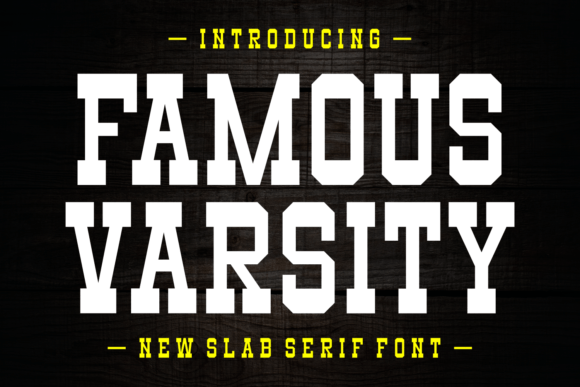
Introducing Famous Varsity Font, the ultimate slab serif font that is guaranteed to make your designs stand out from the crowd! Created by the talented Riman from 7NTypes, this font is a game-changer for those who crave boldness and assertiveness in their typography.
With its unique and captivating style, Famous Varsity Font is the perfect choice for anyone seeking a font that truly embodies the essence of creativity. Whether you're designing logos, branding materials, or even creating eye-catching social media posts, this font will undoubtedly leave a lasting impression on your audience.
One of the key highlights of Famous Varsity Font is its versatility. It seamlessly blends into any project, regardless of the topic or theme. From sports-related designs to vintage-inspired creations, this font effortlessly adapts to your creative vision, allowing you to express your ideas with precision and flair.
But what sets Famous Varsity Font apart from the rest? Its ability to evoke emotions and create a sense of nostalgia. When your audience lays eyes on your designs, they will instantly be transported back to their glorious school days, filled with excitement and team spirit. This font has the power to evoke a strong emotional response, making it the perfect choice for anyone looking to create a memorable and impactful design.
Not only does Famous Varsity Font bring a touch of nostalgia to your projects, but it also exudes professionalism and sophistication. Its bold and assertive nature commands attention, ensuring that your message is delivered loud and clear. Whether you're designing for a corporate brand or a personal project, this font will add a touch of elegance and refinement that will set you apart from the competition.